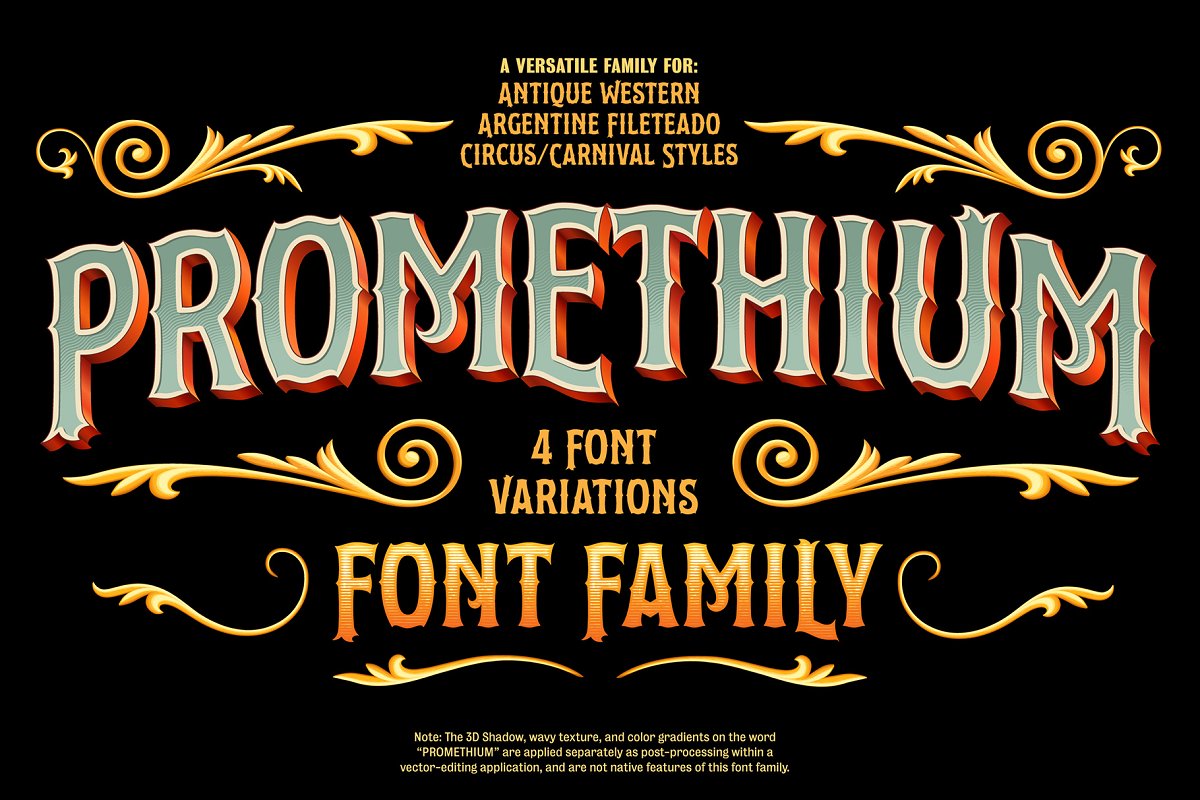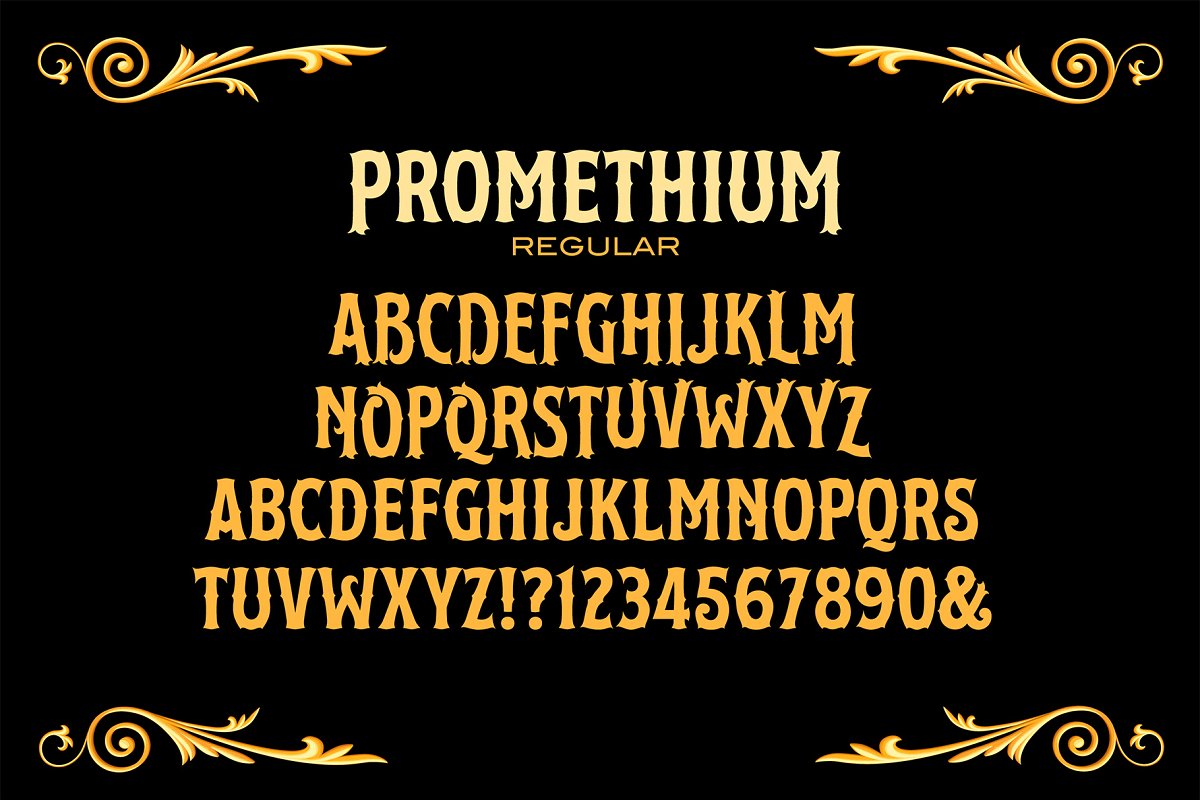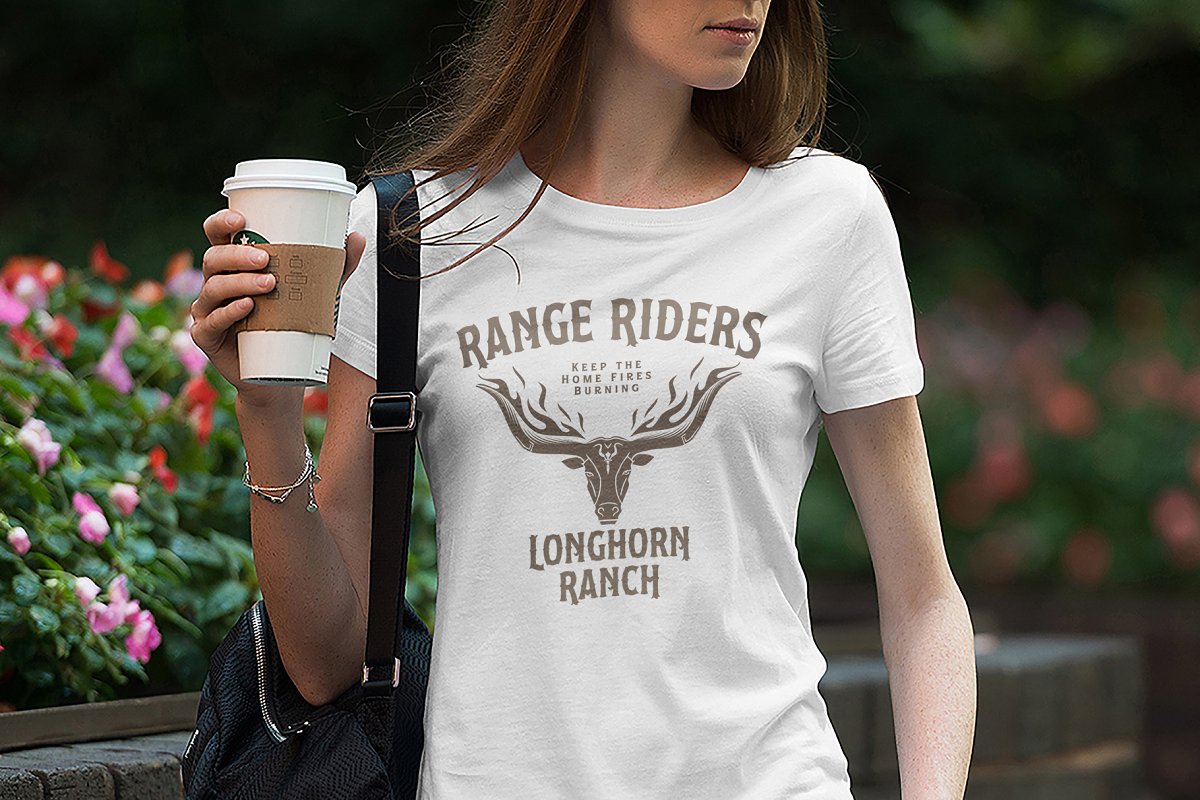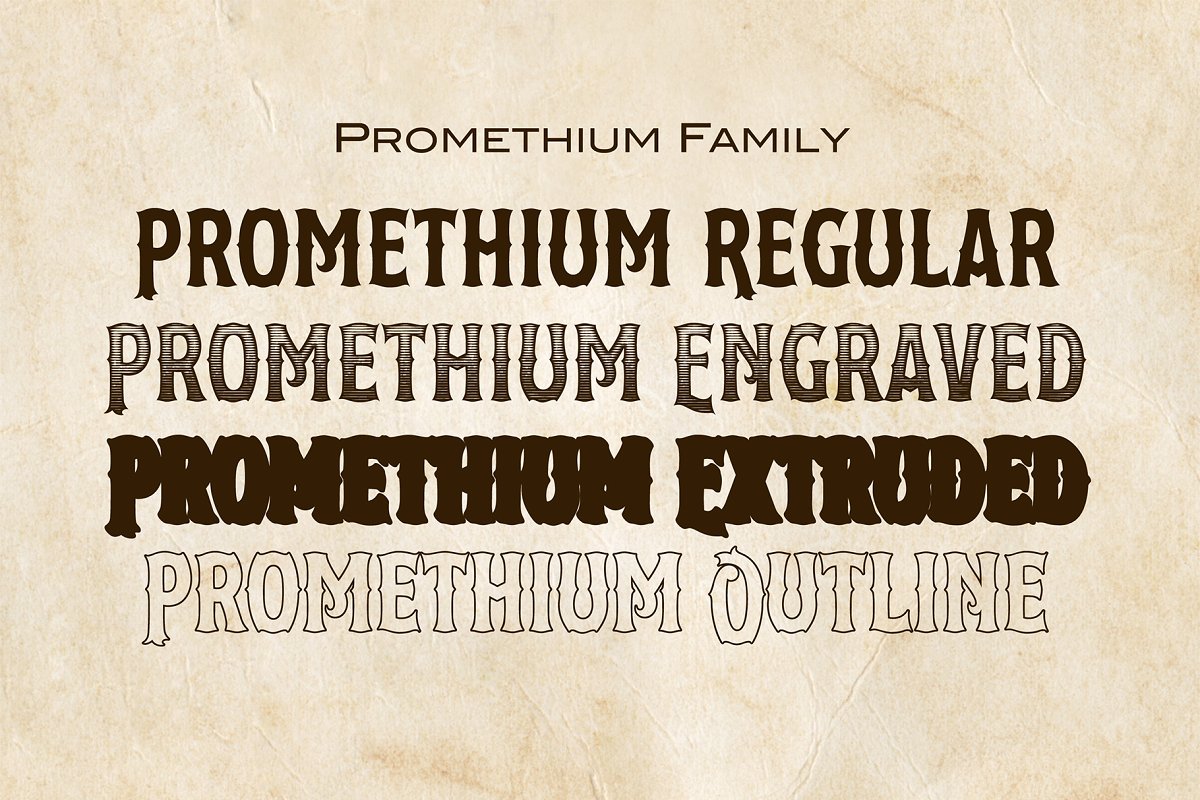
About the Promethium Font Family
Promethium is an elegant vintage-style condensed font with lots of ornate detailing, Ideal for western, cowboy and rodeo graphics, as well as circus & carnival themes, Additionally, Promethium can trace some of its design roots to the well established Argentine graphic style known as Fileteado, as well as to Victorian poster and book arts, The stacking & layering of the 4 different versions of the font can yield a great range of eye-catching diverse looks and color schemes that can fit many purposes